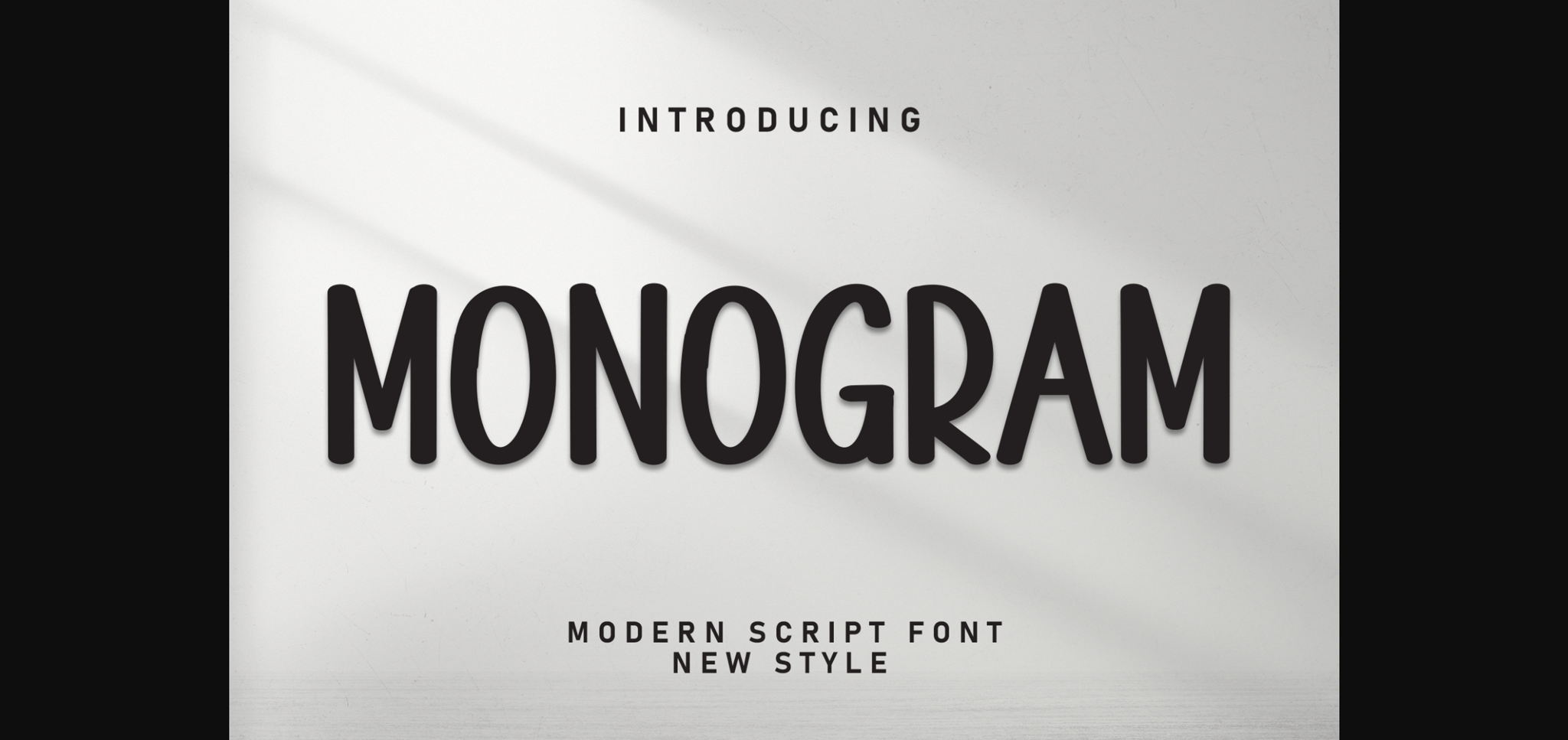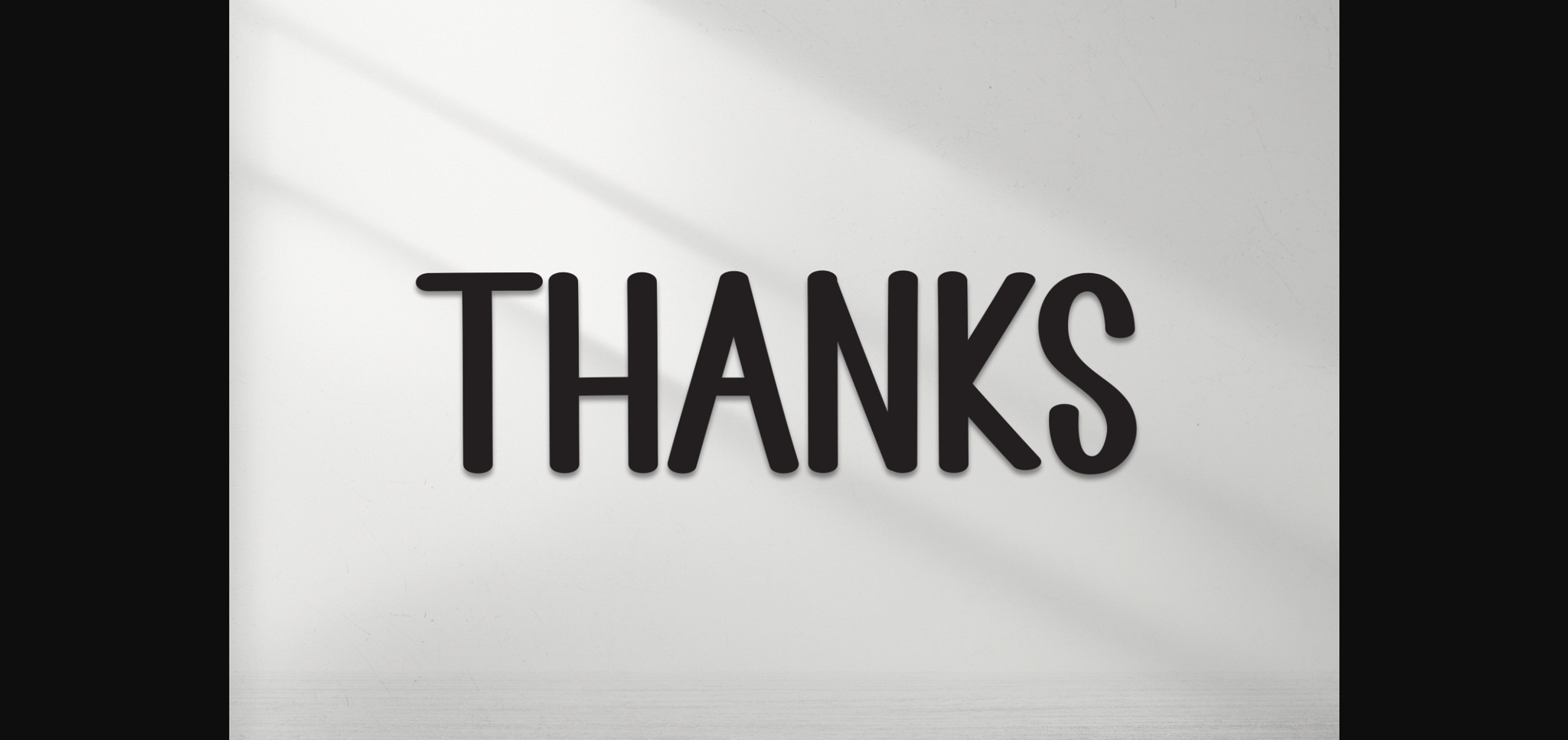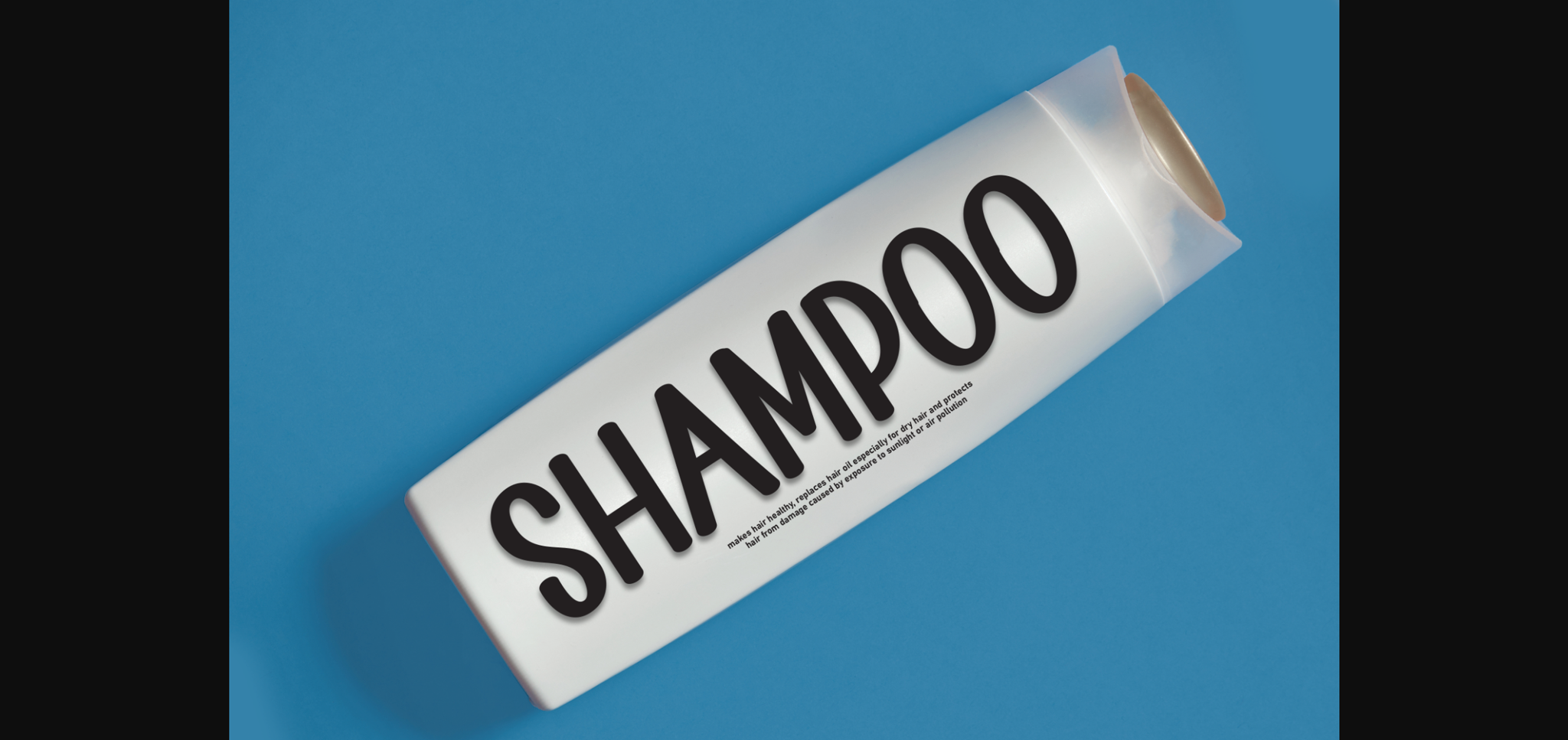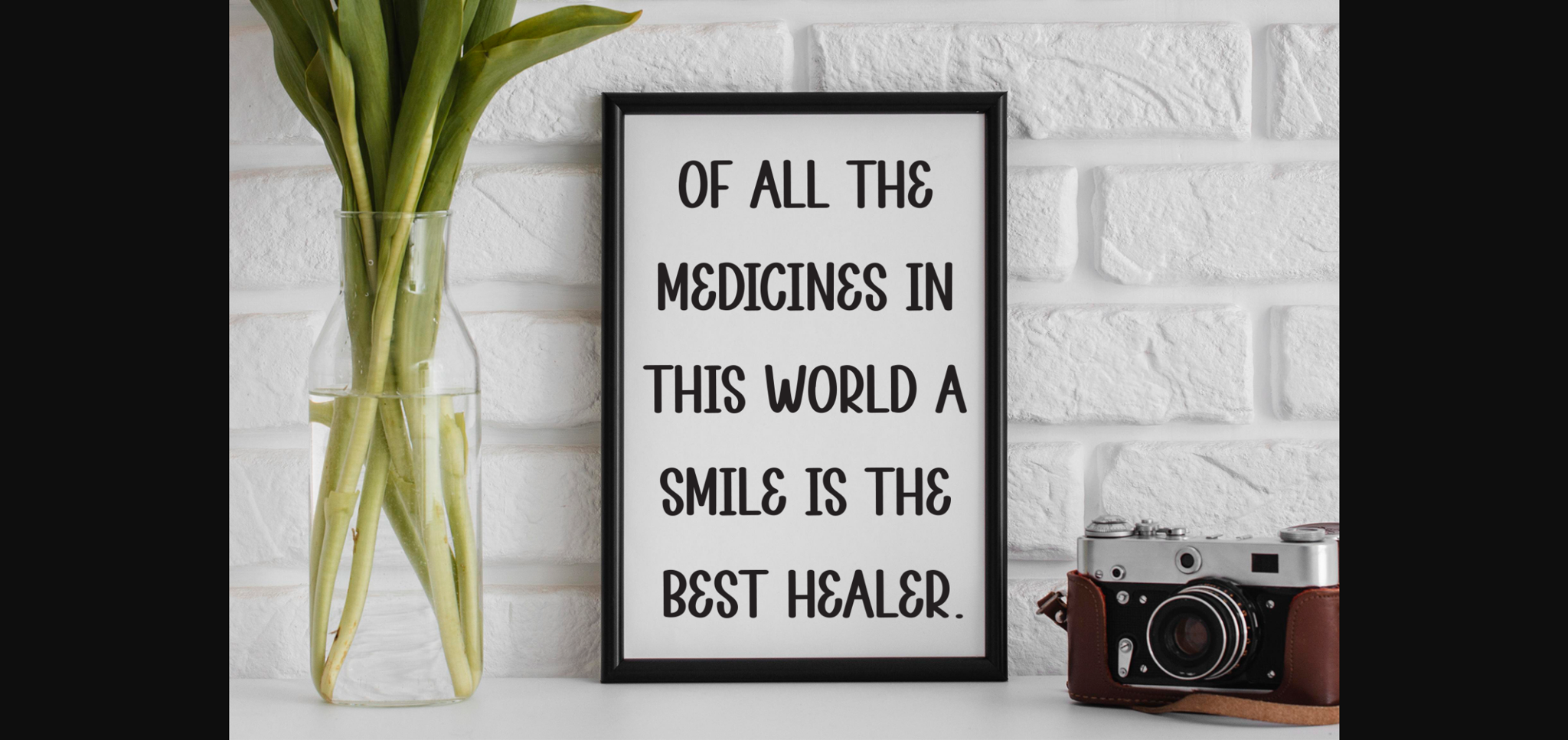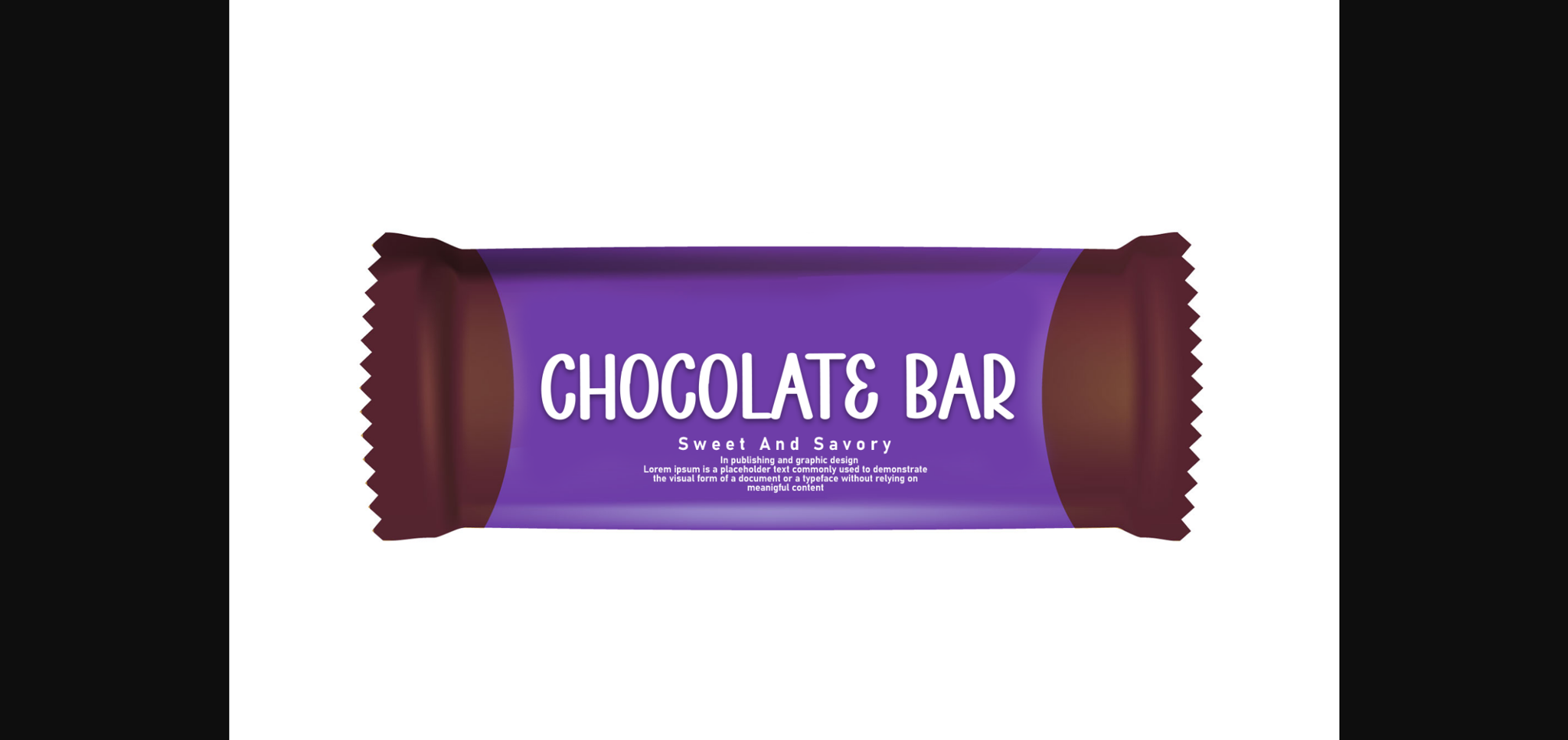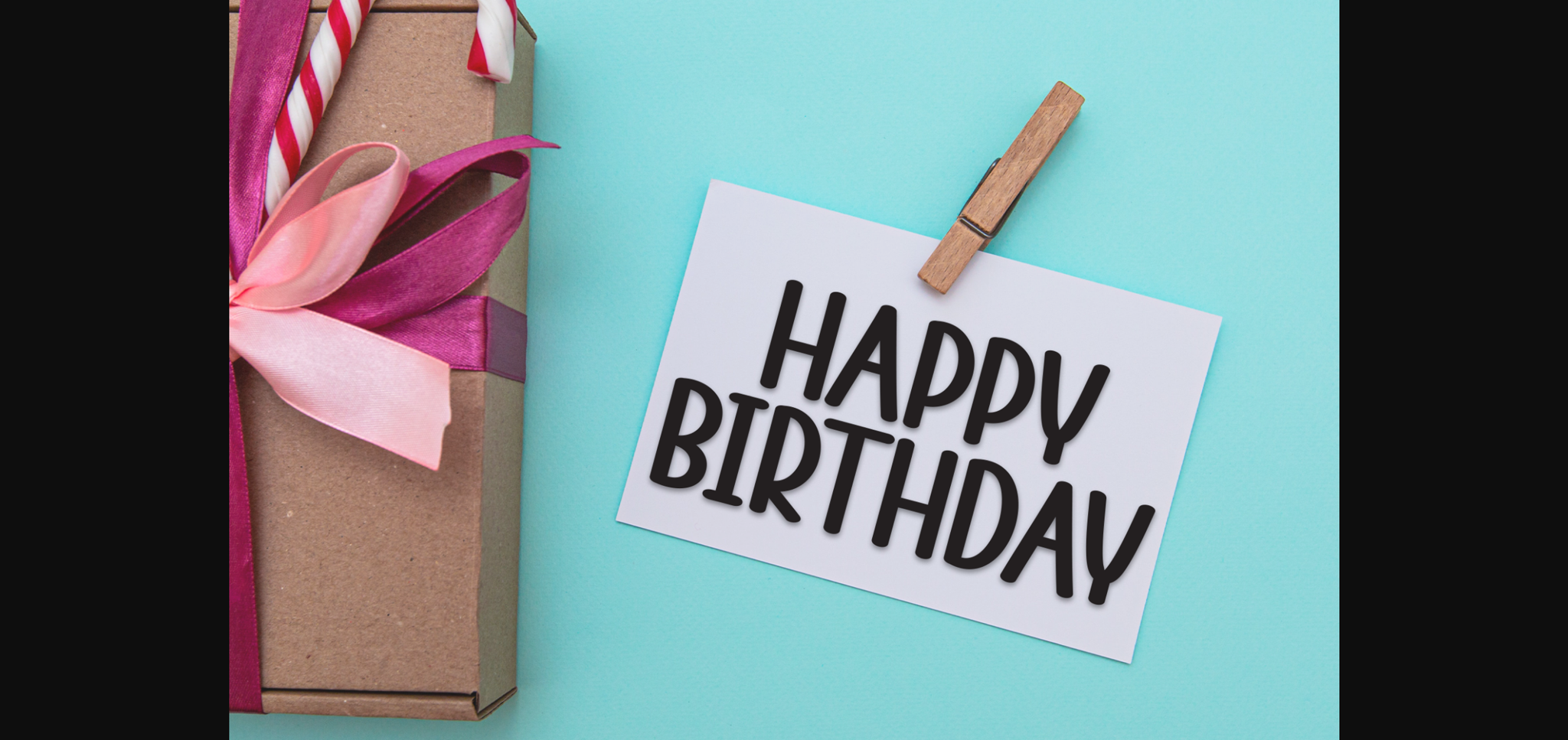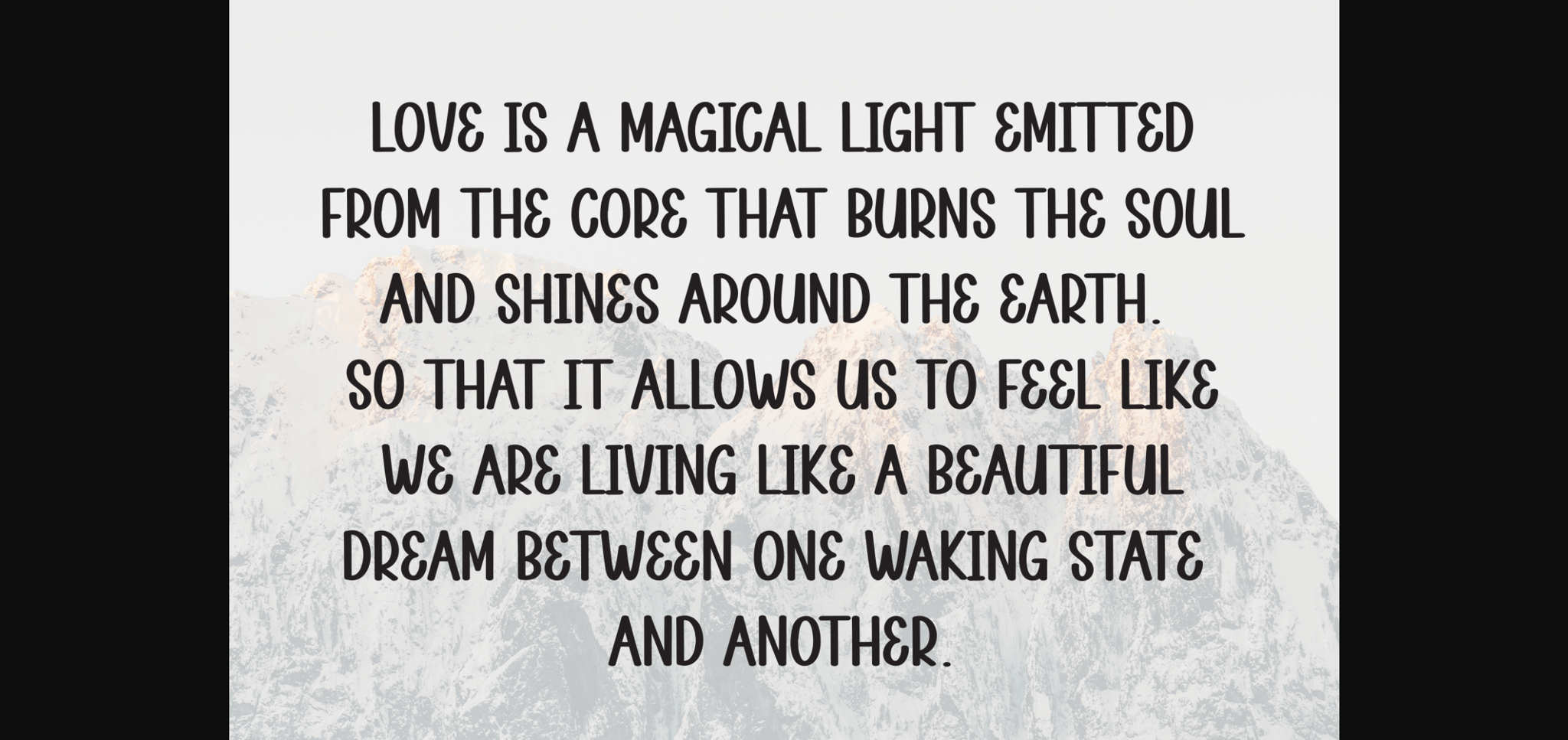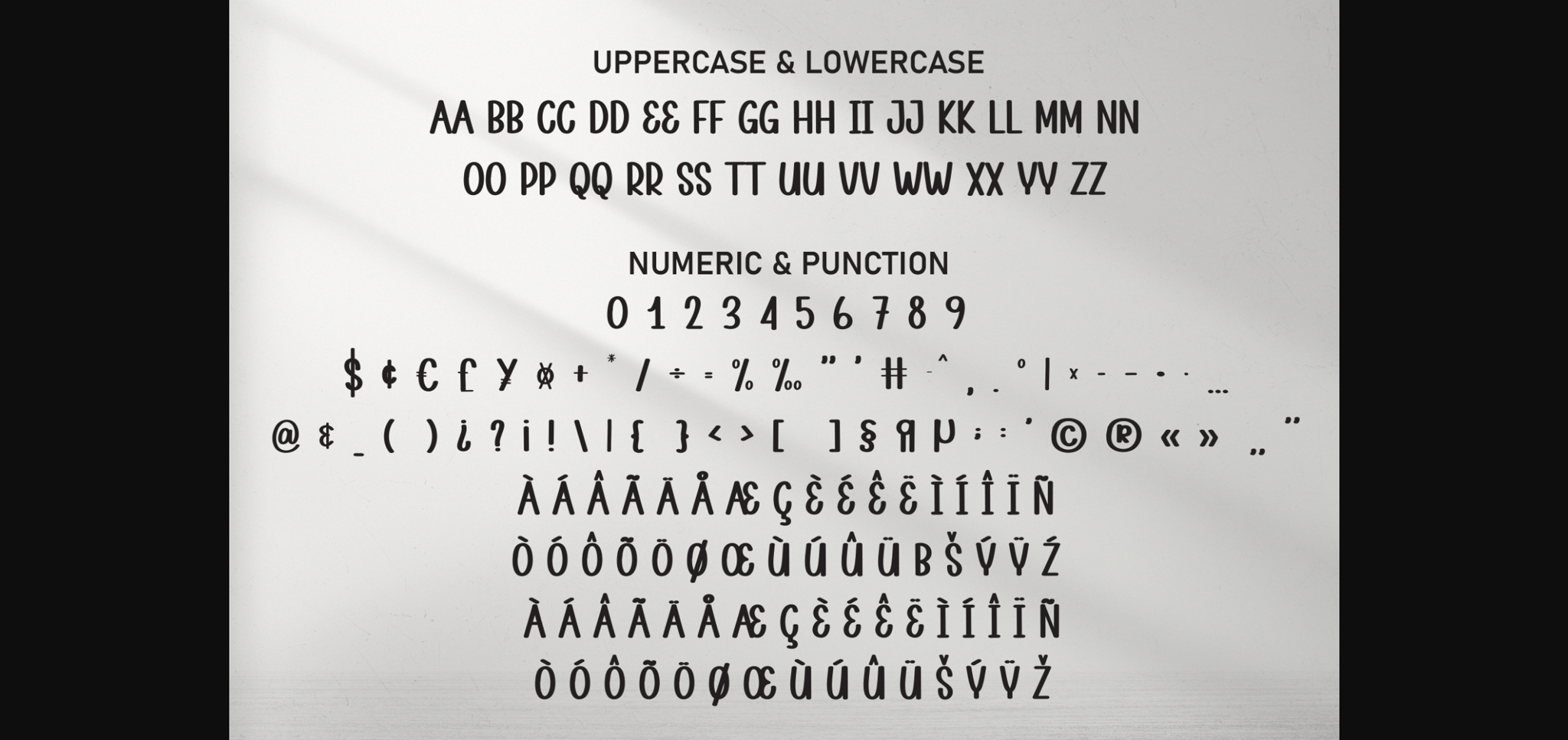
Monogram is a sweet and friendly sans-serif font. Cute and versatile, this font is ideal for writing wedding invitations, cards, or any other design that might need a fun touch!